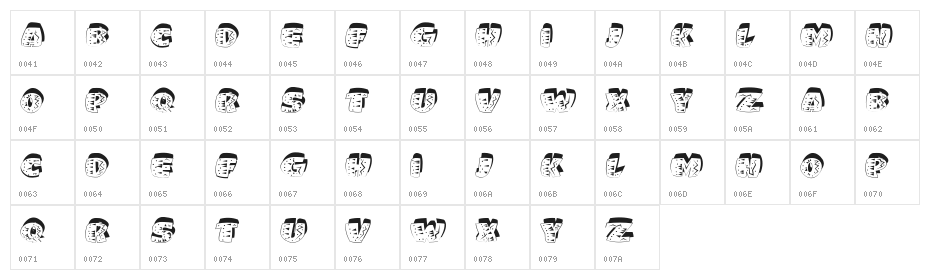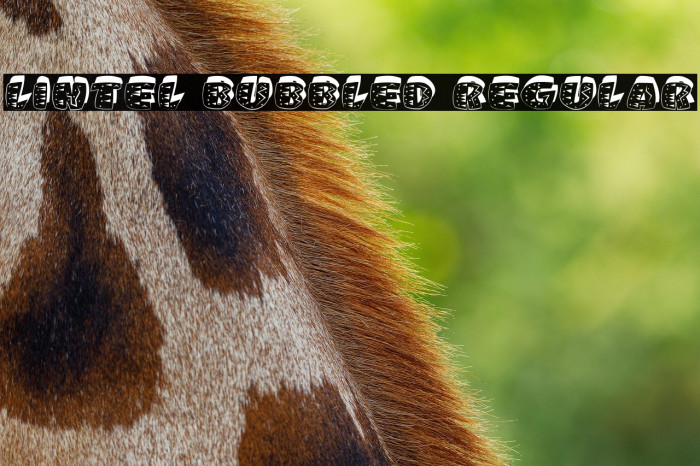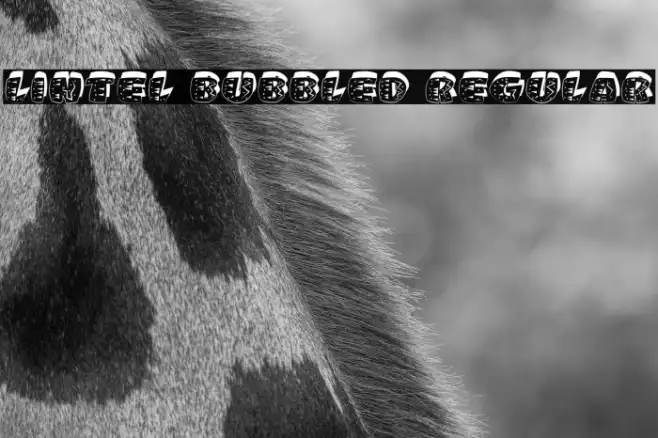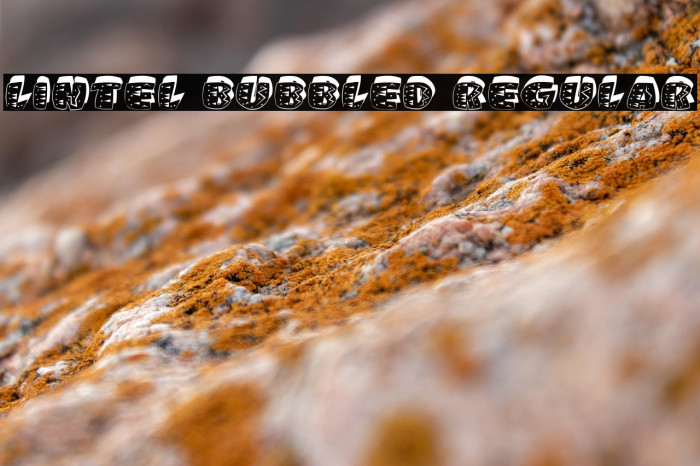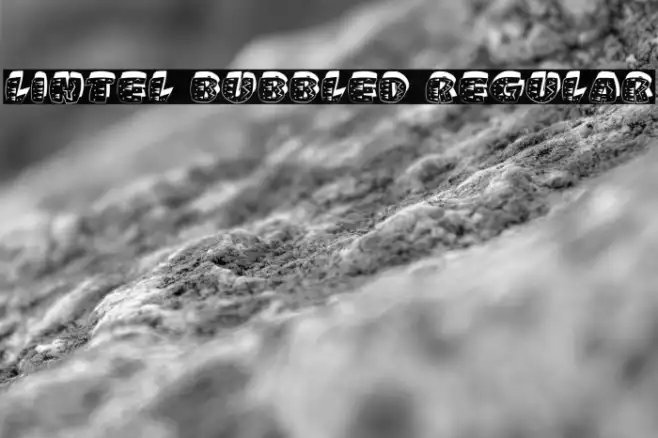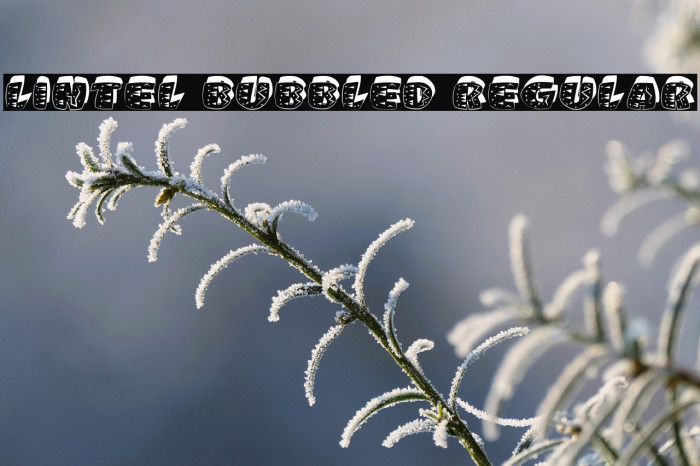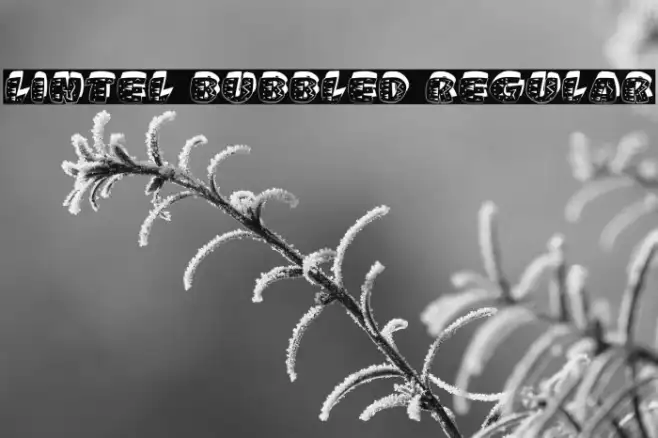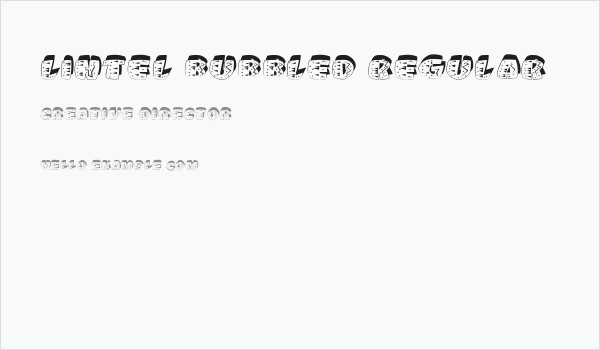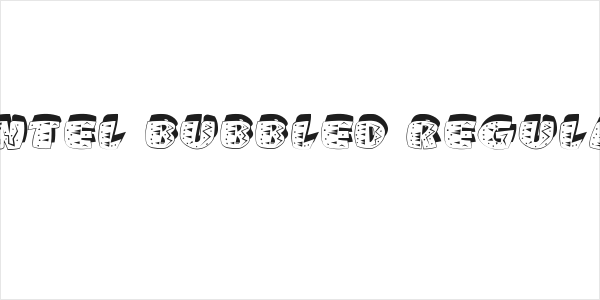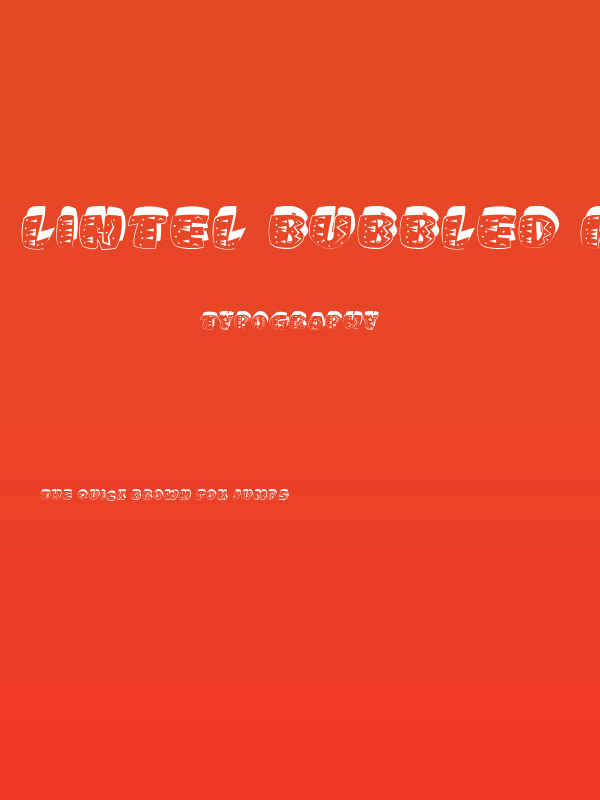
Lintel Bubbled Regular Font
Lintel Bubbled Regular Description
This playful and dynamic font features bold, rounded characters with a bubbled texture that adds a sense of fun and creativity. The letters are filled with various patterns, including dots and lines, giving them a unique and eye-catching appearance. The font's thick strokes and rounded edges contribute to its friendly and approachable style, making it suitable for a variety of creative projects. Its decorative nature makes it stand out, perfect for designs that require a touch of whimsy and individuality. The font maintains a consistent weight throughout, ensuring readability while still offering a distinct visual appeal.